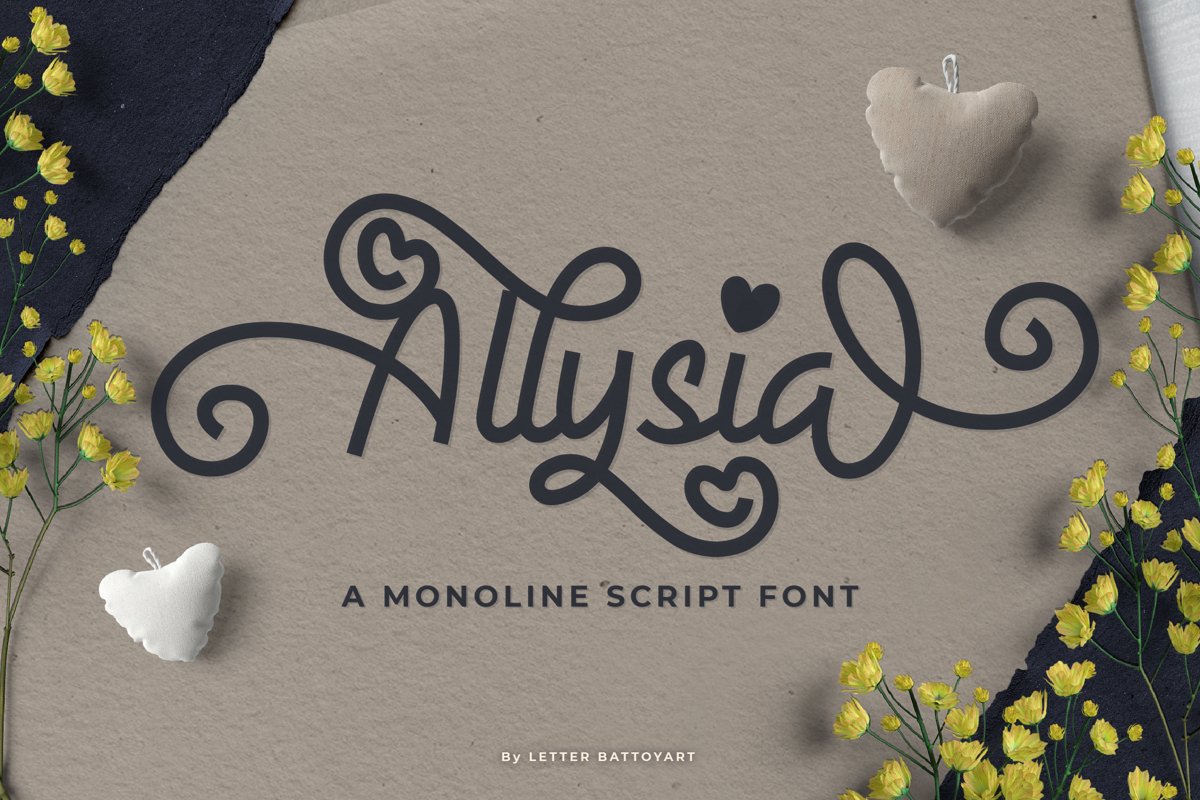
Allysia - a monoline script font
Allysia
Introducing a new monoline script called Allysia. came with features stylistic alternates, stylistic sets. You can use it as a for logo, quote, badge, typography art, packaging, headline, poster, t-shirt/apparel, greeting card, wedding invitation and any more.